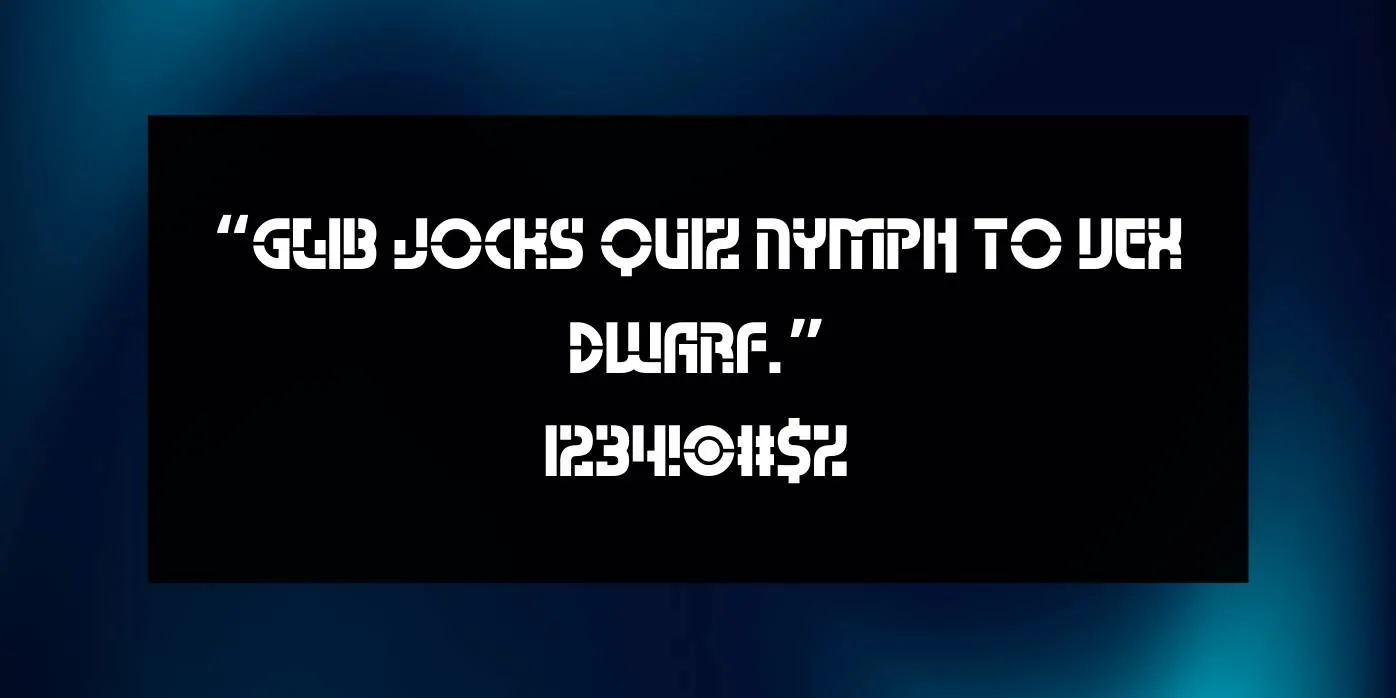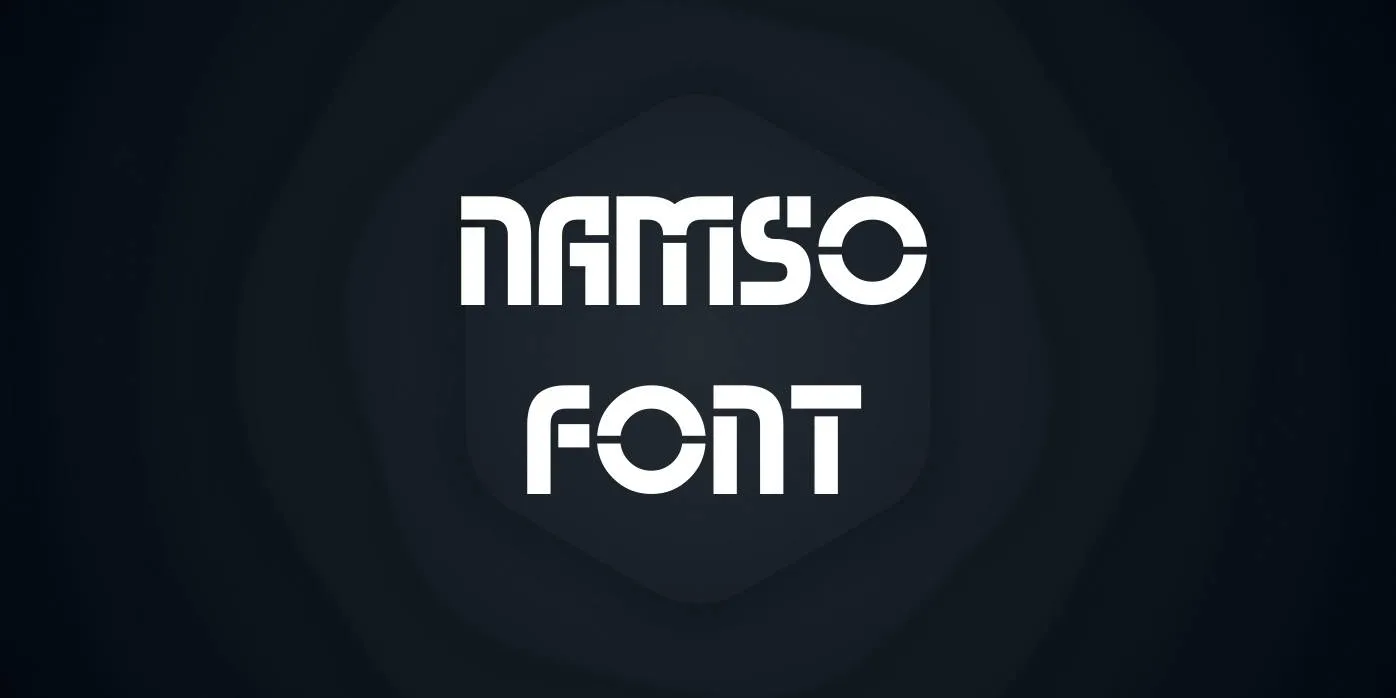
Namso Font
Namso Font is a fancy typeface created by Japanese graphic designer Shusei Nagaoka. The font is based on the Latin alphabet and includes both uppercase and lowercase letters, as well as numbers and punctuation marks. It is available in two weights, regular and bold. This Font was created with readability in mind, and as such is highly legible even at small sizes.
The font’s clean lines and simple shapes make it perfect for use in both body text and headlines. For making something really cool, please try the holland classy font for your valuable design project. The glyphs of this font have been designed to work well together, creating a harmonious and stylish overall effect. The Font family includes support for a wide range of languages, including English, French, Spanish, Portuguese, German, Italian, Dutch, Swedish, Danish, and many more.
This Font is a great choice for any project that needs a touch of luxury or refinement.